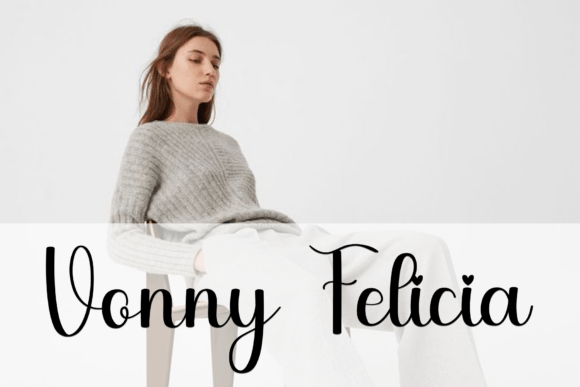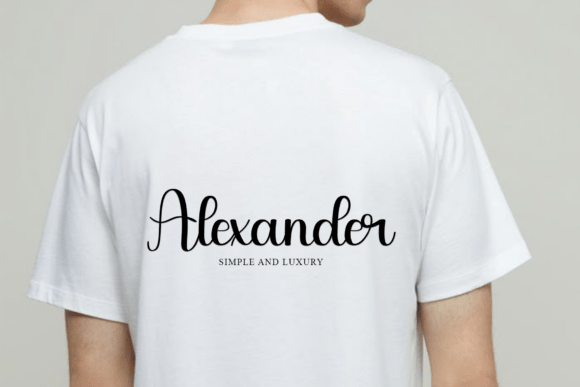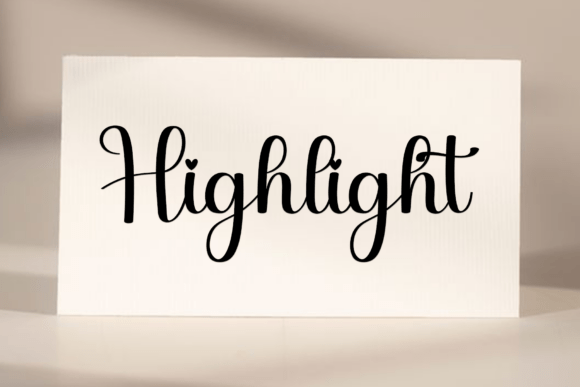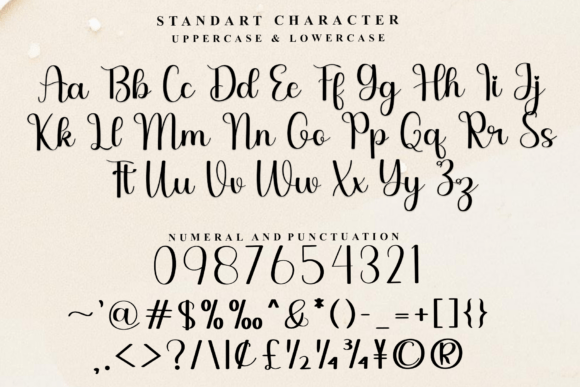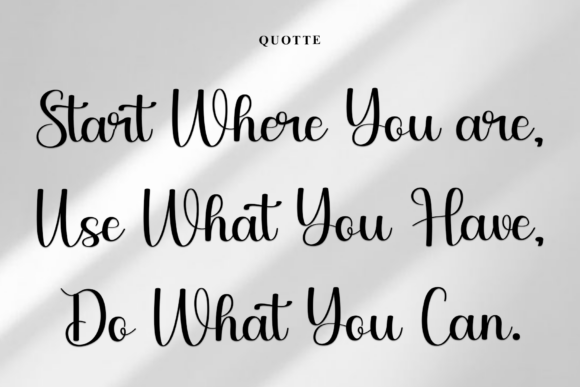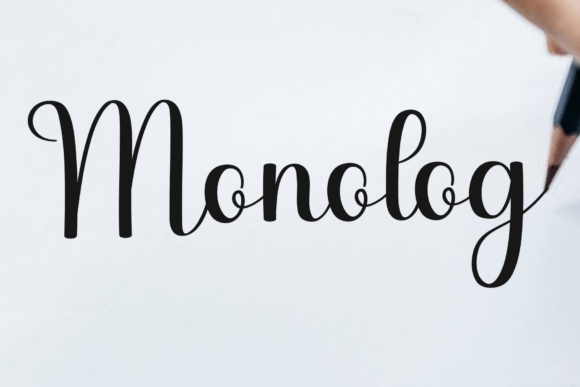
Introducing Alphabet Studio Font: The Perfect Blend of Creativity and Friendliness
Are you a designer, crafter, or DIY enthusiast looking for a font that can add a personal touch to your projects? Look no further than Alphabet Studio Font, a casual and creative font that exudes warmth and friendliness. This charming font is designed to make your designs stand out, whether you’re working on personal projects, invitations, social media graphics, or any other creative endeavor.
The Unique Characteristics of Alphabet Studio Font
Alphabet Studio Font boasts round, playful strokes that create a relaxed and approachable feel. Its hand-drawn aesthetic adds a fun and unique touch to any design, making it perfect for those who want to infuse their work with personality. The font’s charming and creative vibe is sure to captivate your audience and leave a lasting impression.
One of the standout features of Alphabet Studio Font is its versatility. Whether you’re designing a birthday invitation, a social media post, or a blog graphic, this font is sure to complement your design. Its casual and friendly demeanor makes it an excellent choice for a wide range of projects, from personal to commercial.
Technical Features of Alphabet Studio Font
Alphabet Studio Font is equipped with standard PUA Encoded glyphs, which are designed to work seamlessly with various application engines. This includes popular design software such as Adobe Photoshop, Corel, Adobe Illustrator, and Canva, among others. This means that you can easily integrate Alphabet Studio Font into your design workflow, without worrying about compatibility issues.
So, what makes Alphabet Studio Font an excellent choice for designers and crafters? Here are just a few benefits:
- Unique and Creative Designs: Alphabet Studio Font allows you to create unique and creative designs that stand out from the crowd. Its hand-drawn aesthetic adds a personal touch to your projects, making them more engaging and memorable.
- Ease of Use: With its PUA Encoded glyphs, Alphabet Studio Font is easy to use with various design software. This means you can focus on creating stunning designs, without worrying about technical issues.
- Versatility: Alphabet Studio Font is versatile and can be used for a wide range of projects, from personal to commercial. Its casual and friendly vibe makes it perfect for designs that require a personal touch.
- Time-Saving: With Alphabet Studio Font, you can save time and effort in creating custom designs. Its pre-designed glyphs and characters allow you to focus on the creative aspects of your project, rather than spending hours on designing individual elements.
Alphabet Studio Font is an excellent choice for designers and crafters looking for a creative and friendly font to add a personal touch to their projects. Its unique characteristics, technical features, and versatility make it perfect for a wide range of designs, from personal to commercial. With Alphabet Studio Font, you can create stunning designs that stand out and leave a lasting impression on your audience.